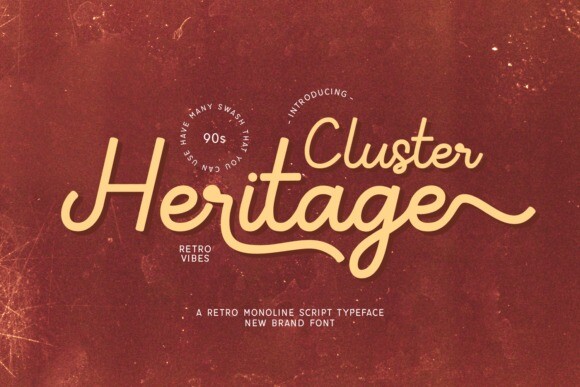
Cluster Heritage Font
Cluster Heritage Font is a retro monoline script typeface. The font’s delicate, flowing letterforms create a sense of fluidity and grace, making it perfect for designs that require a touch of refinement. Its minimalist style lends itself well to various applications, from invitations to branding, while maintaining a modern yet timeless appeal.